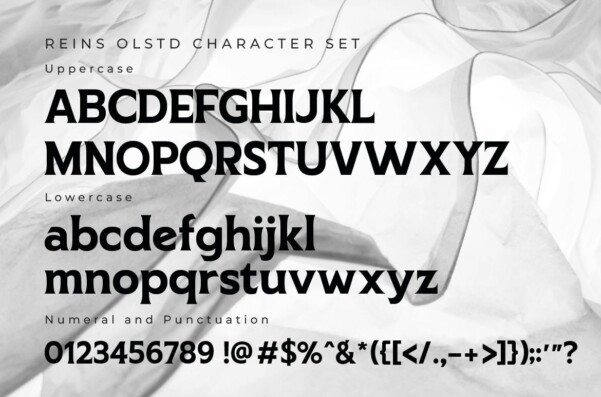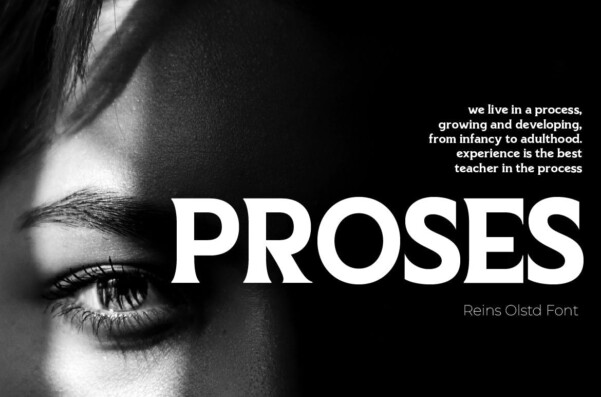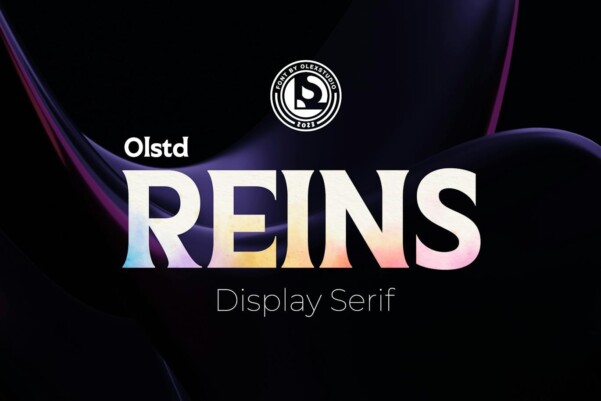
Reins Olstd Font
Reins Olstd Font – Display Serif Font will look beautiful on all your designs, invitations, posters, books, branding materials, logos and all other project designs.
REINS Olstd font – Display Serif contains standard characters, lowercase, uppercase, numbers, punctuation marks, ligatures and international glyphs.